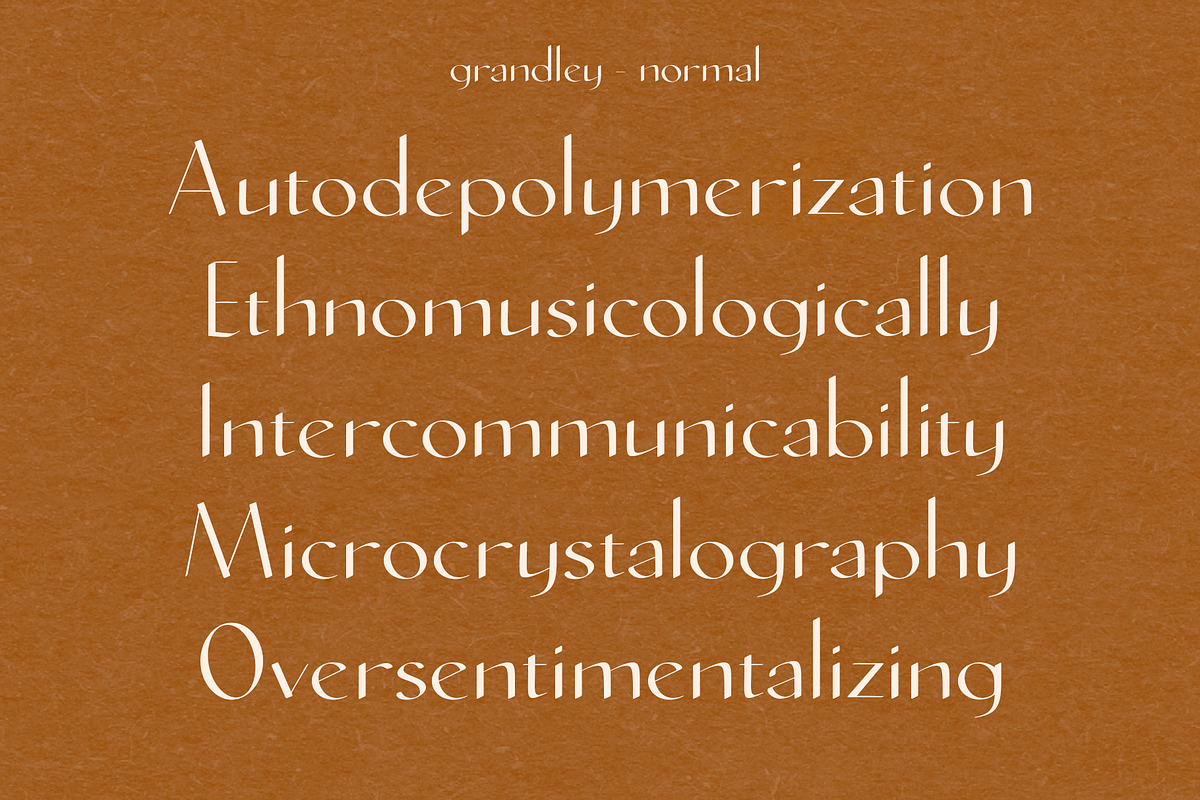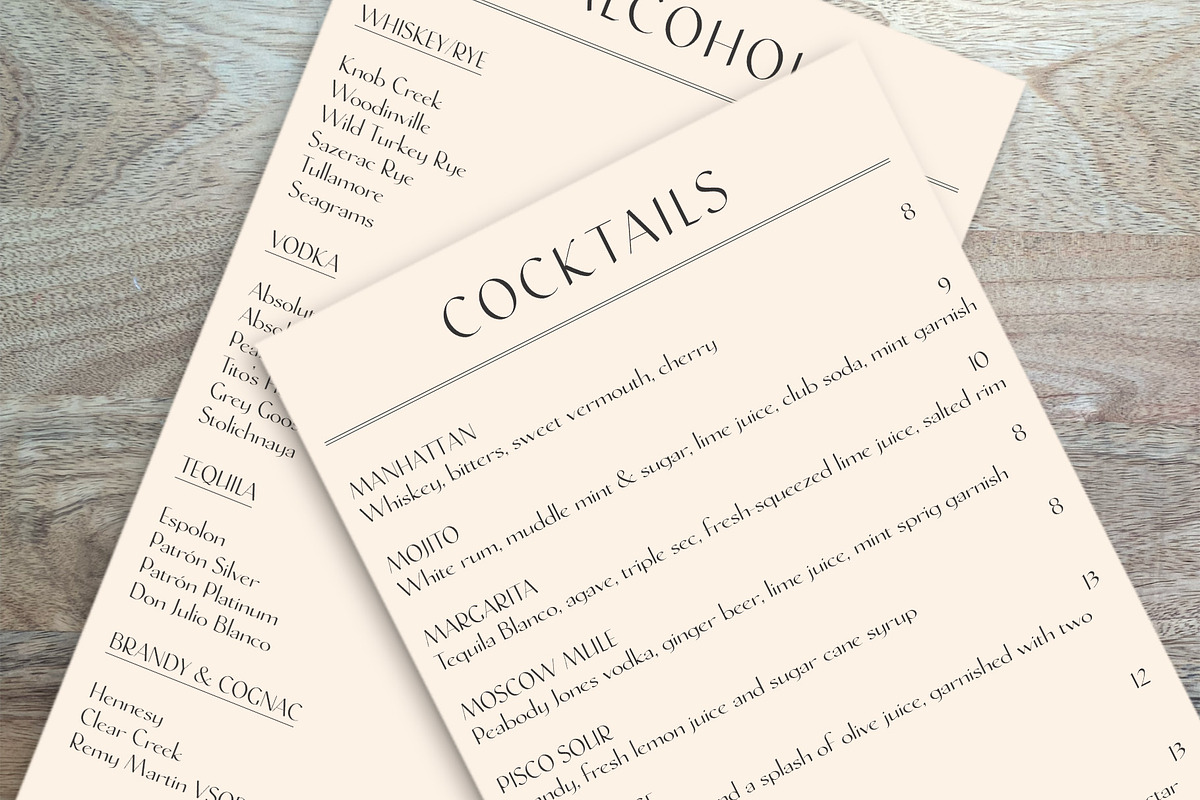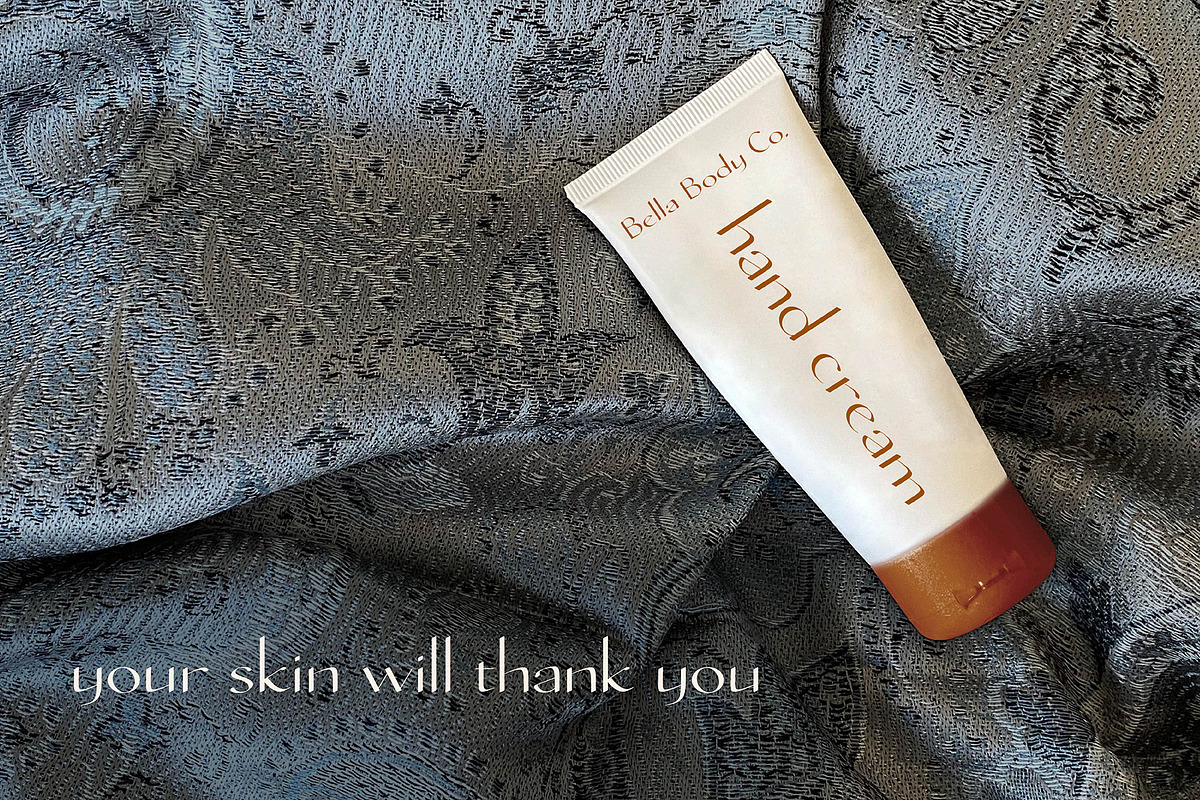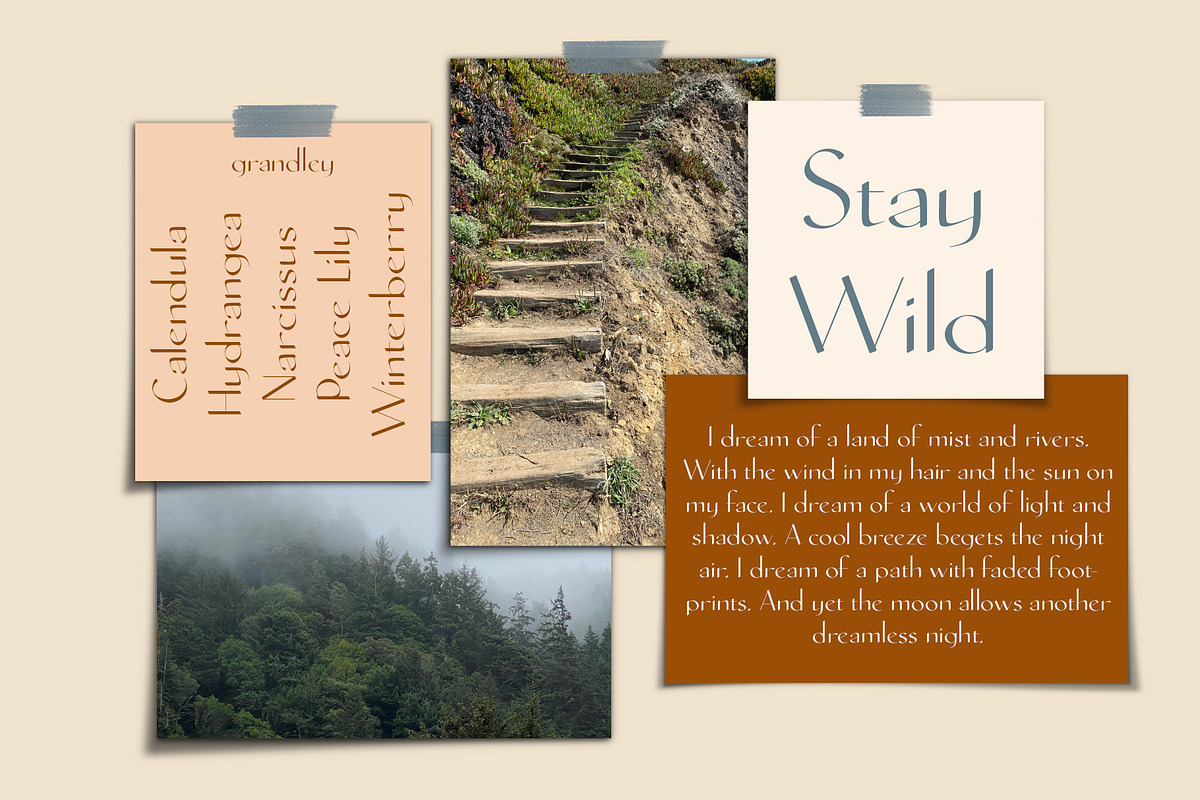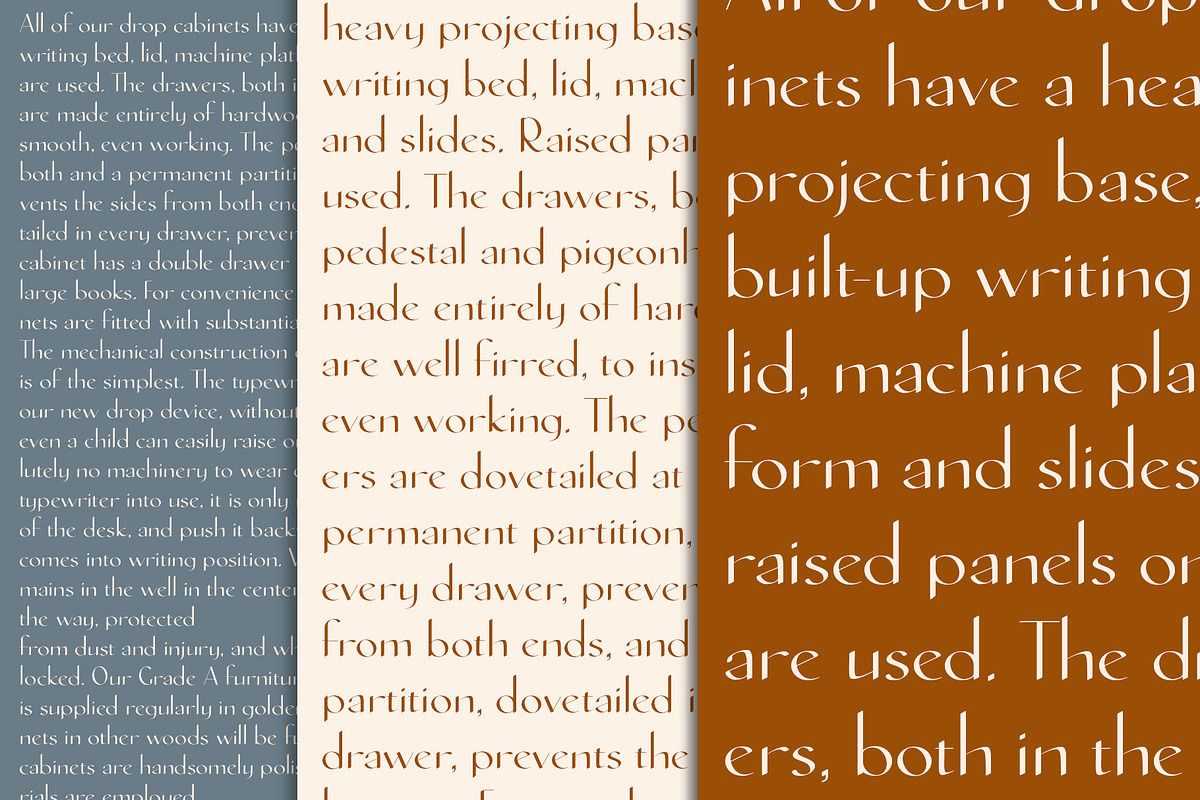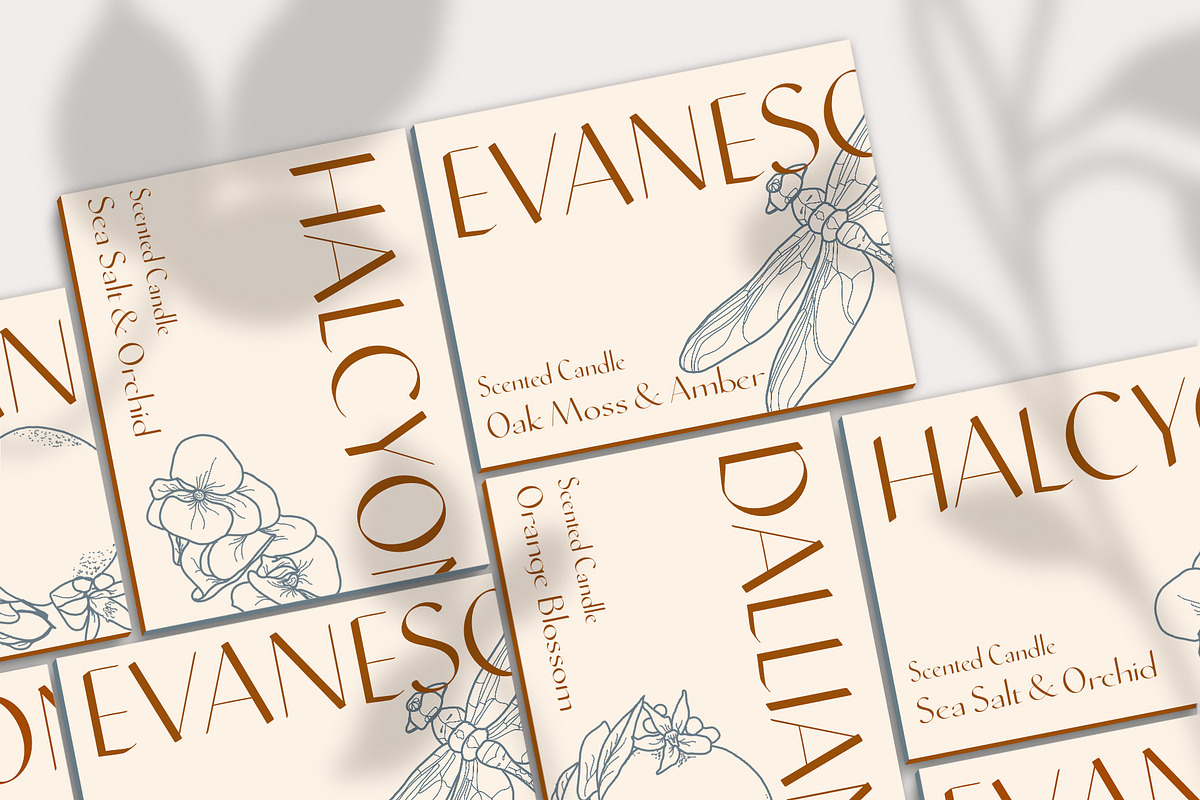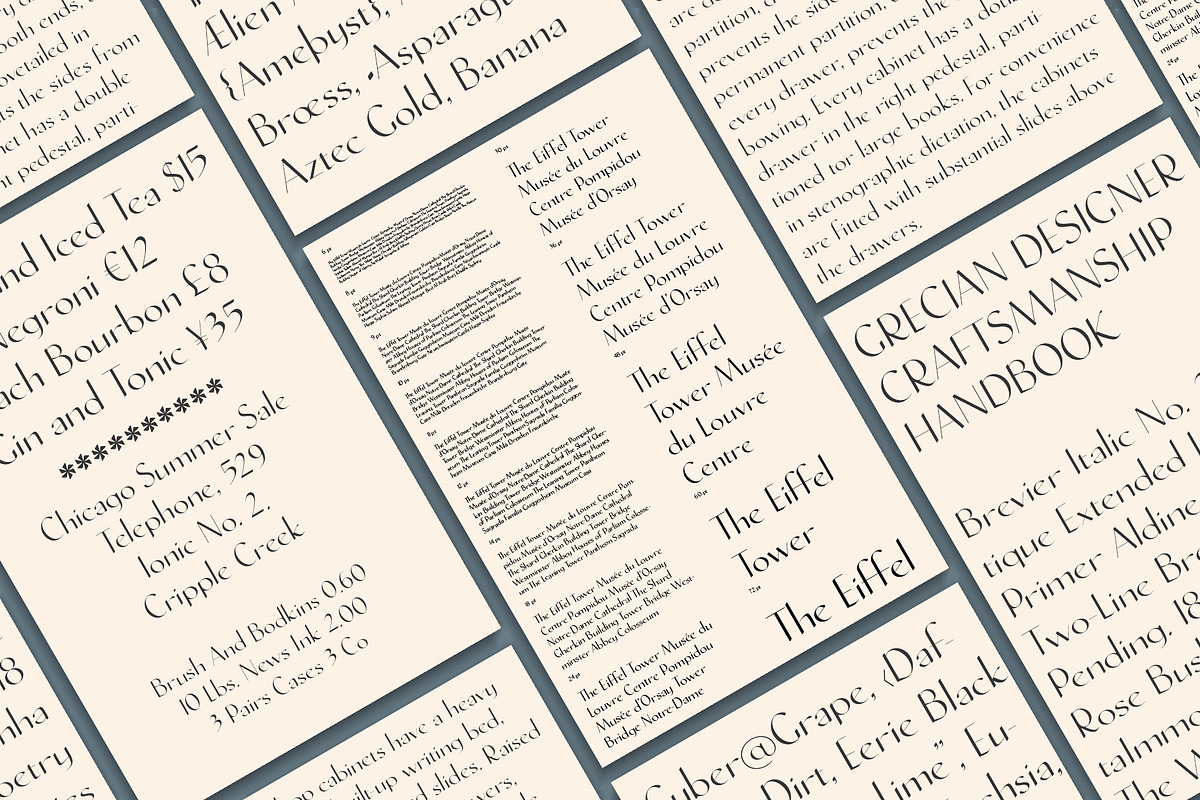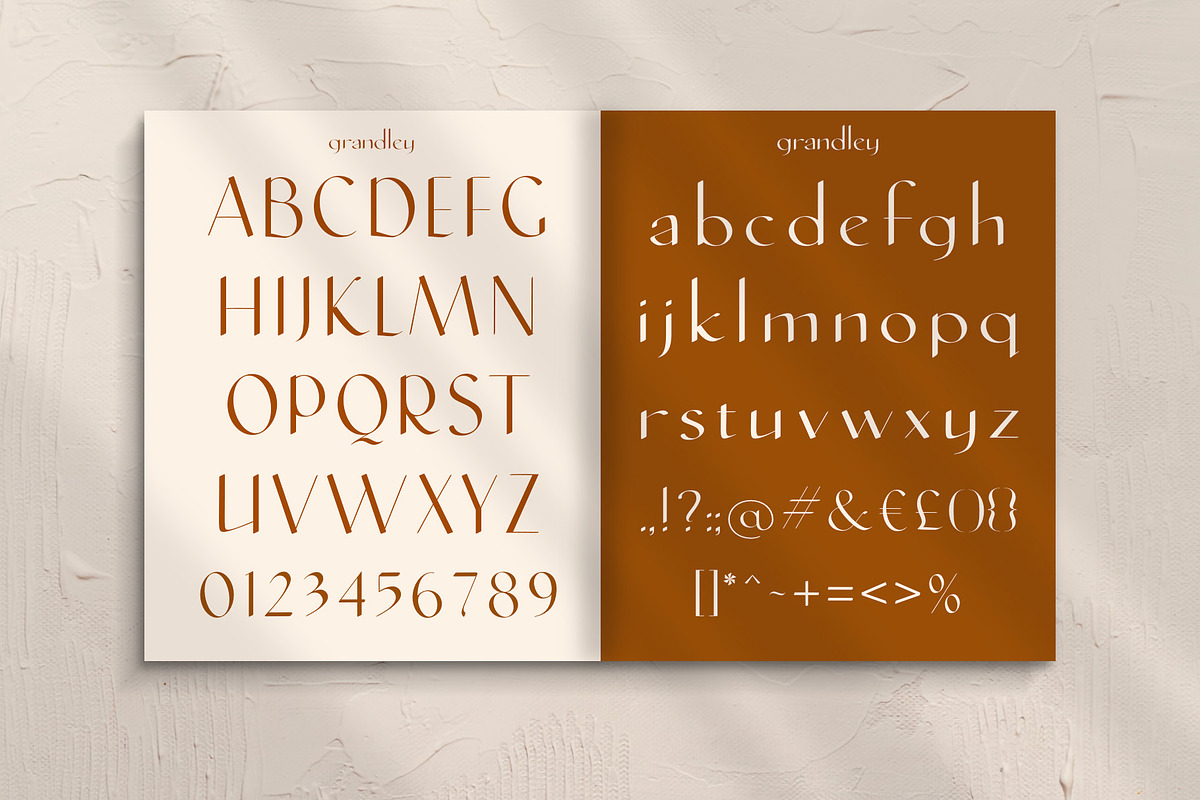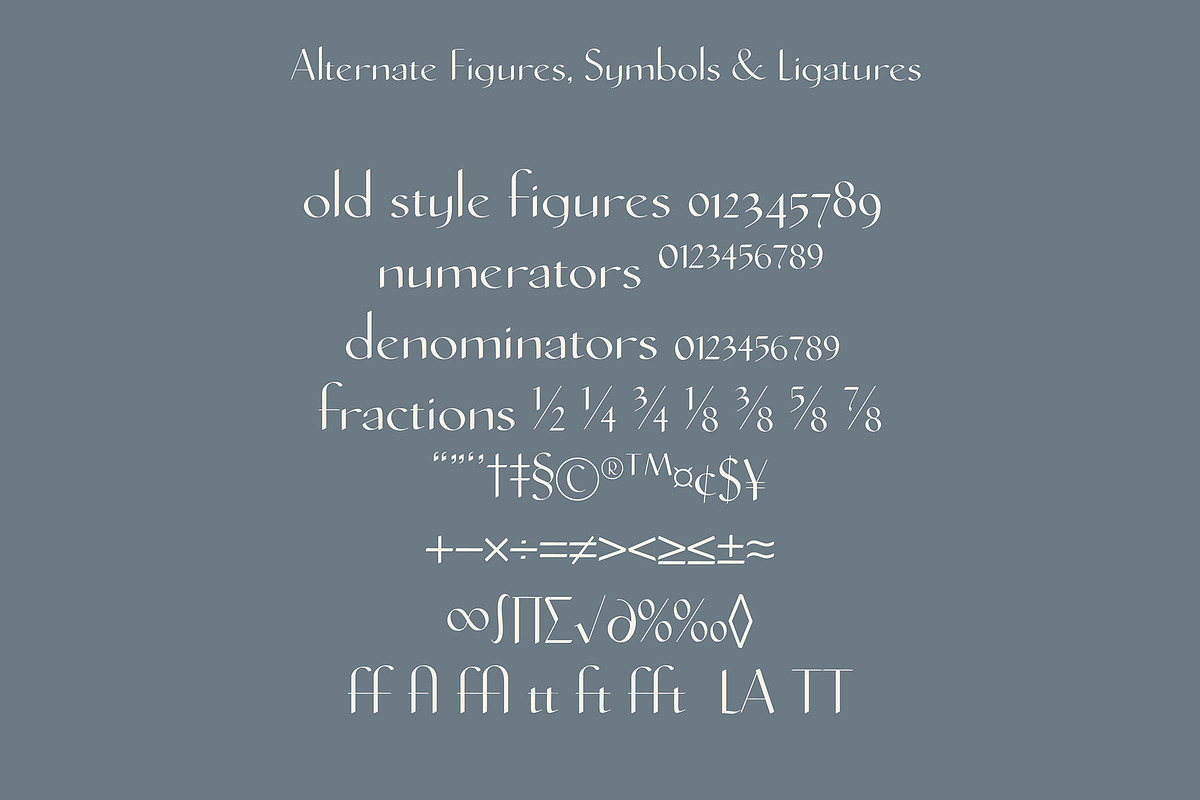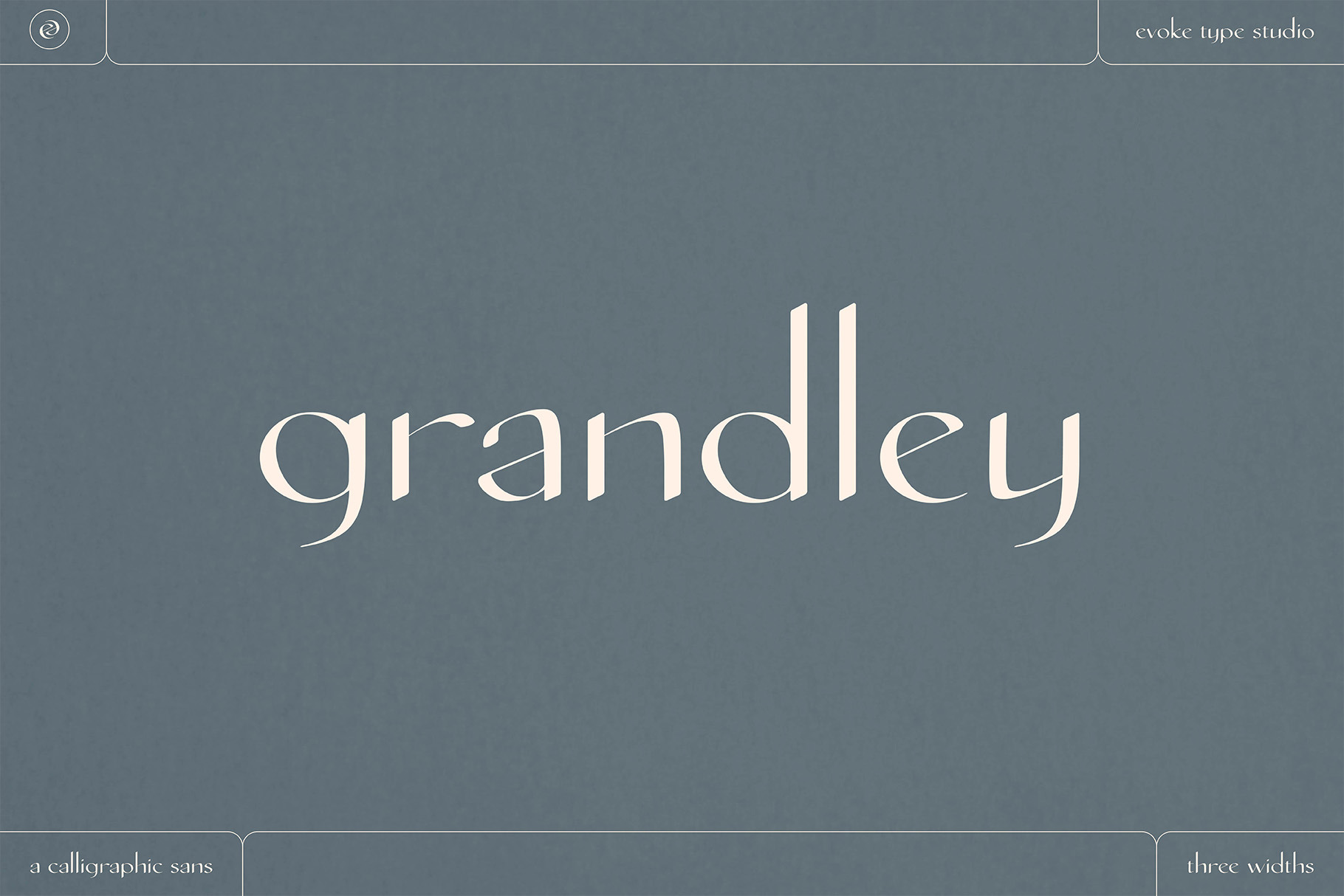
Grandley Sans Serif Font
Based on calligraphic forms, Grandley was created as a modern sans serif with roots in tradition. With its clean lines and beautiful curves, this typeface brings warmth and approachability to your branding and logo designs. Featuring three different widths (condensed, normal and expanded), Grandley can easily be used to accommodate your packaging and advertisement needs.
Grandley is a multilingual font with linguistic support for Western and Central European languages.